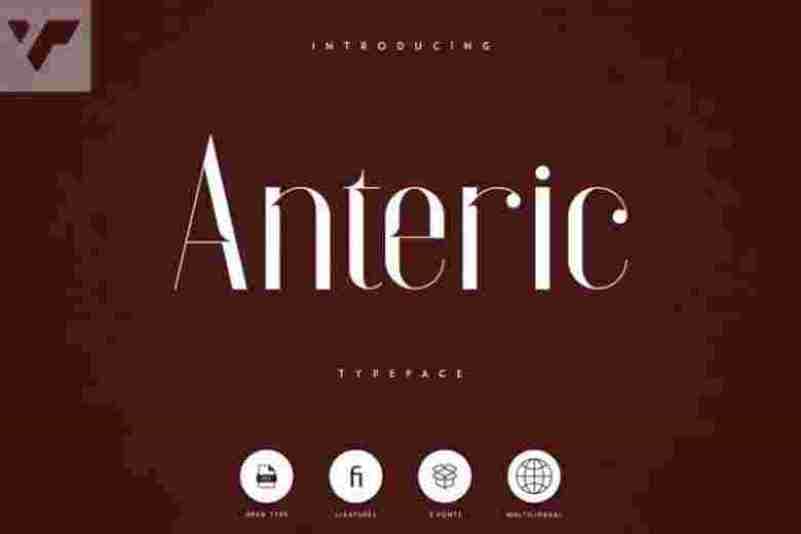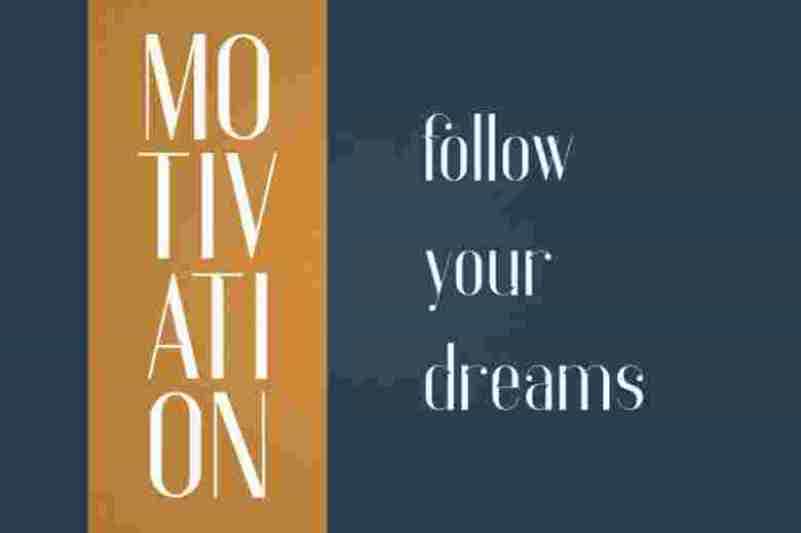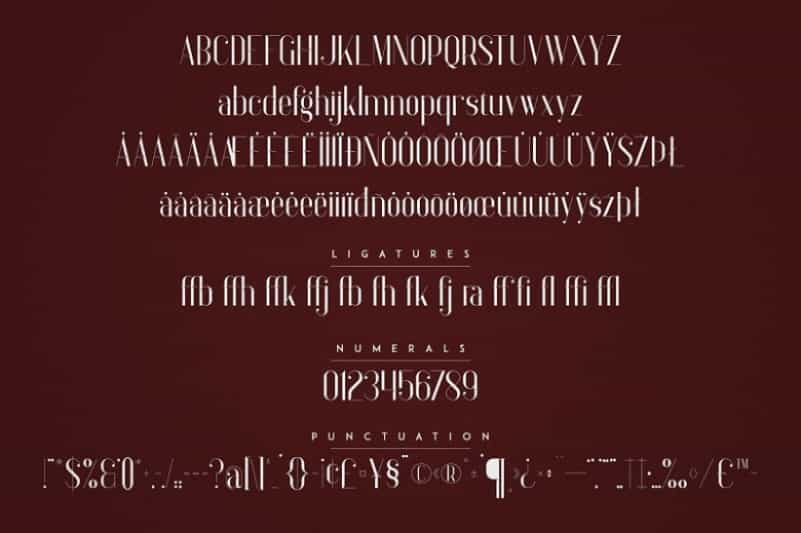
Anteric is an old, chic font that is suitable for all projects, with 3 weights, ligatures and multilingual support. It’s a very VMF family font and very clever in being able to work at both heavy and light sizes.